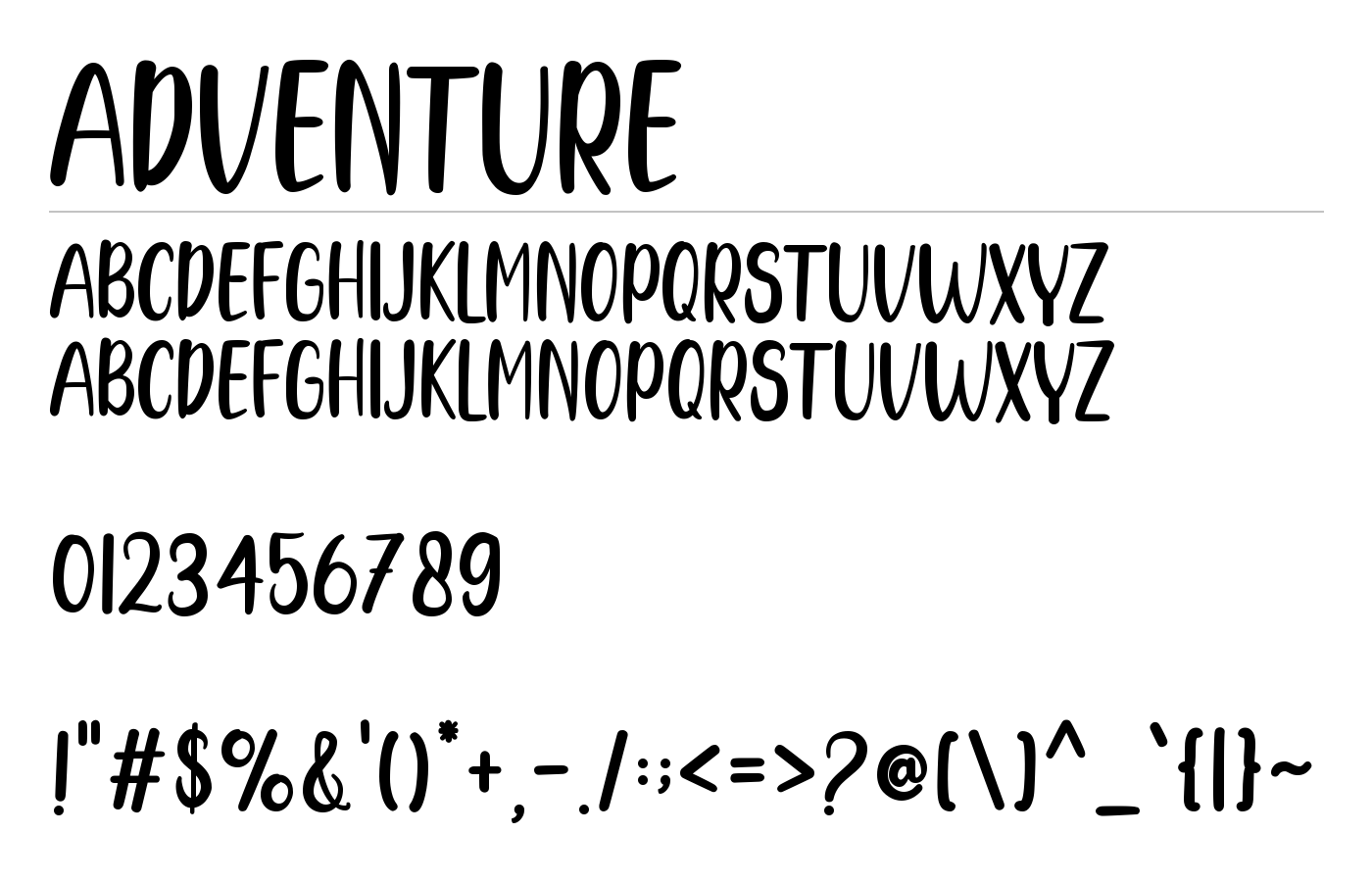
Adventure Font is a playful, hand-drawn sans serif typeface featuring tall, narrow letterforms with a casual, slightly uneven stroke that adds charm and warmth. Its friendly and informal style makes it perfect for creative designs, children's projects, and any branding seeking a fun, approachable personality. This font works well in headlines, packaging, and invitations where a lively and engaging look is desired.
Adventure Font
About Adventure Font
| Font family | Adventure Font |
| Designer | Risma Ramawi |